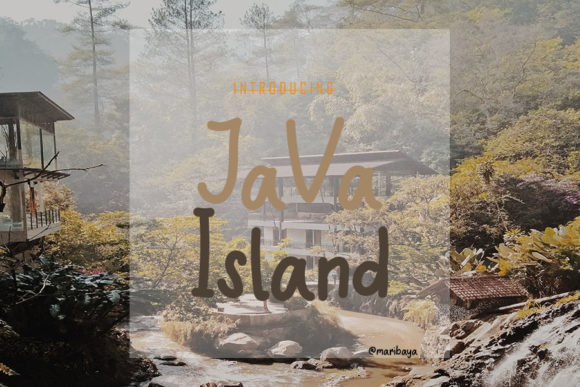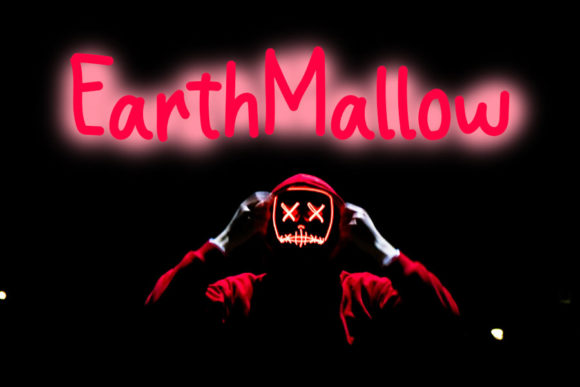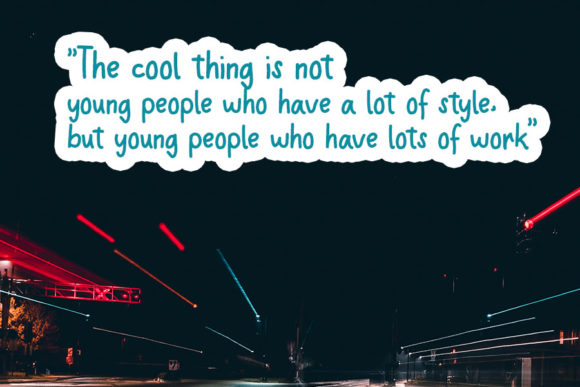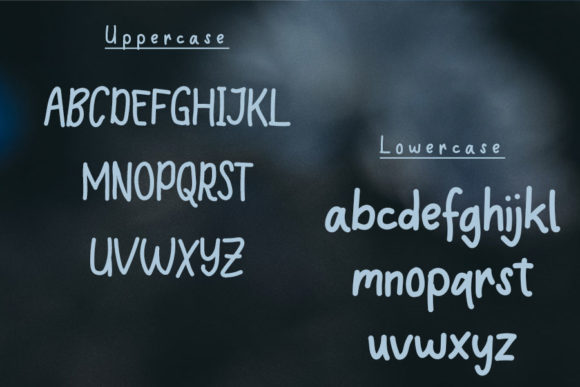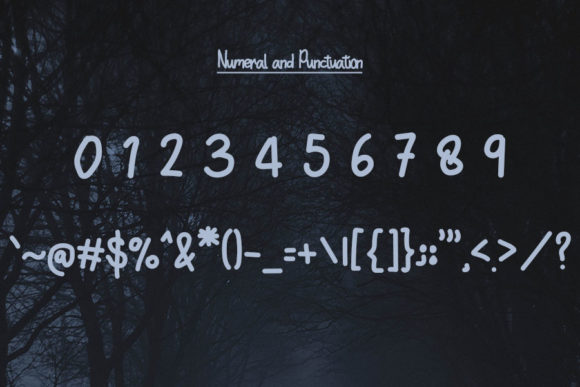
Java Island Font
About Java Island Font
Java Island is an incredibly unique handwritten font.
Masterfully designed to become a true favorite, this font has the potential to bring each of your creative ideas to the highest level!